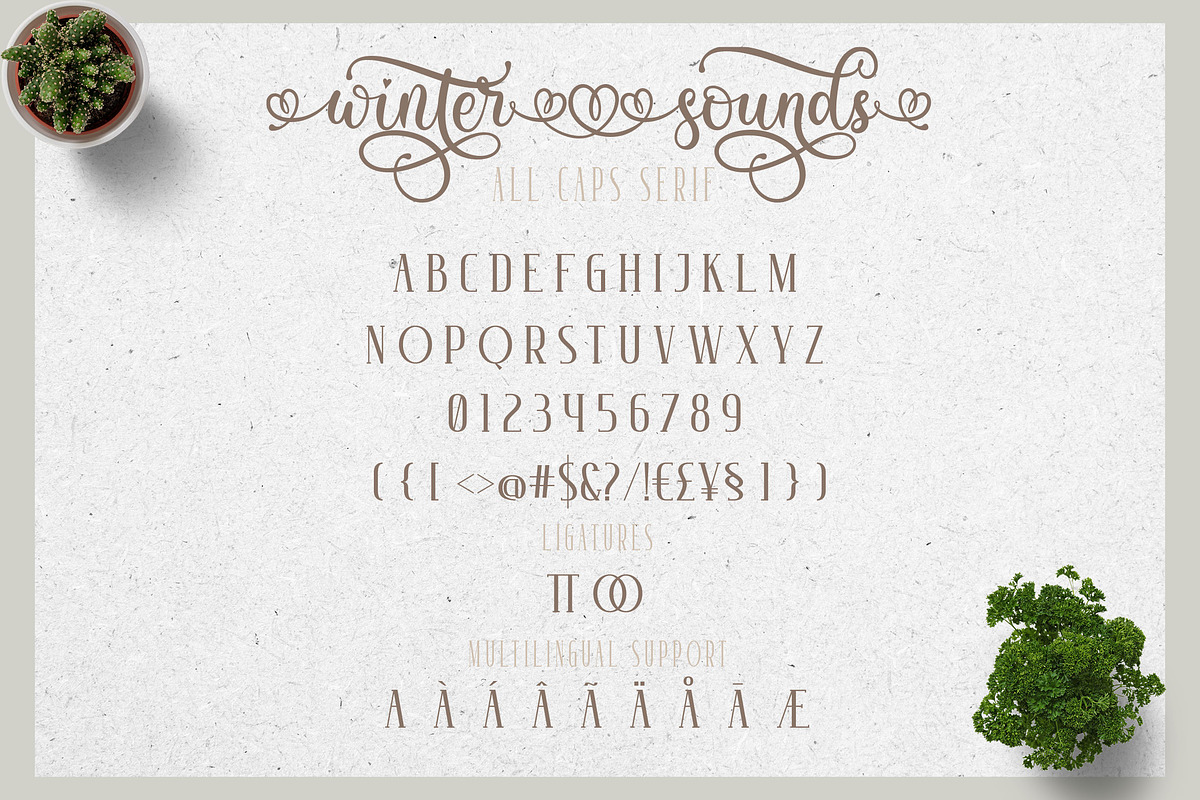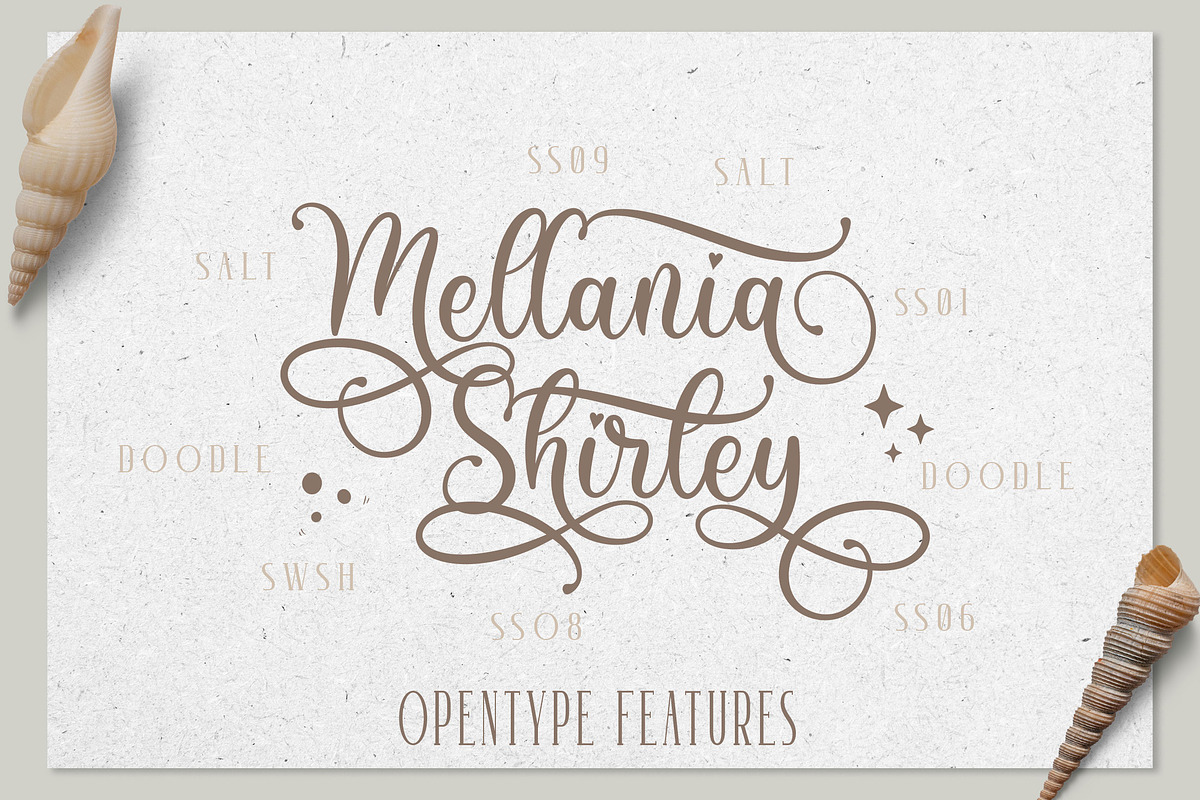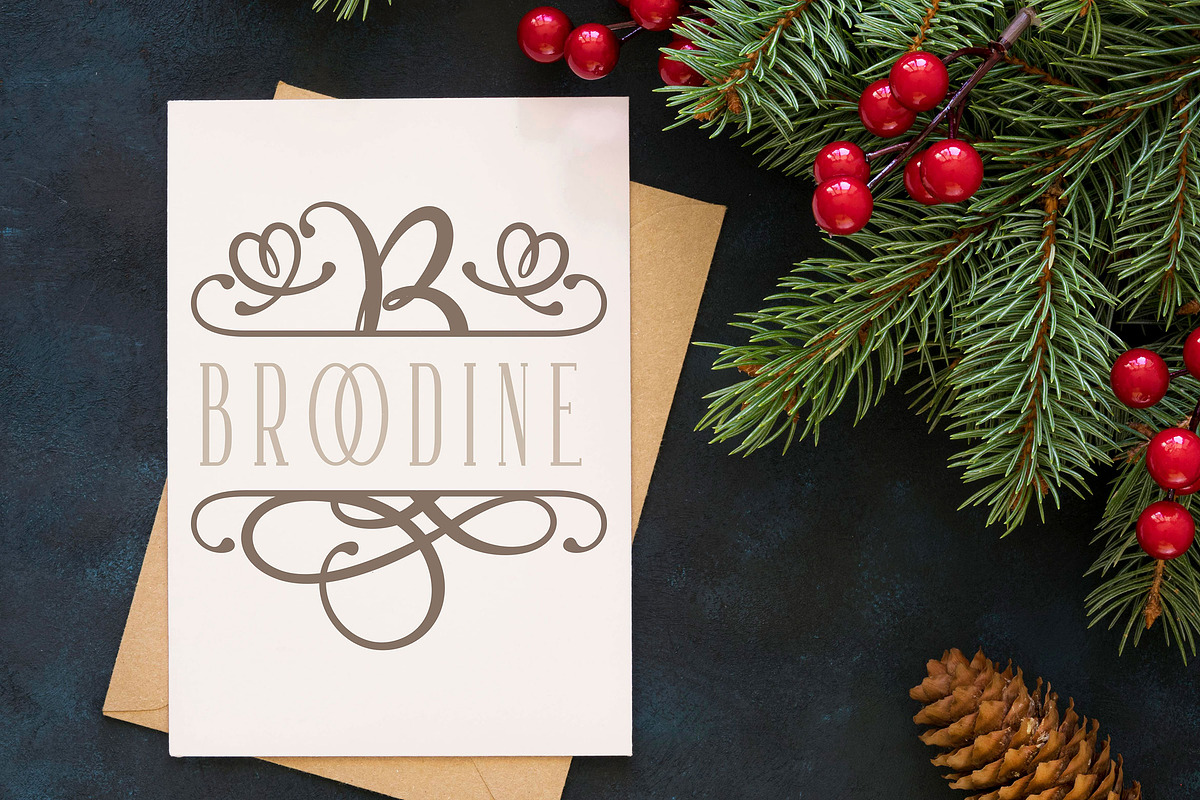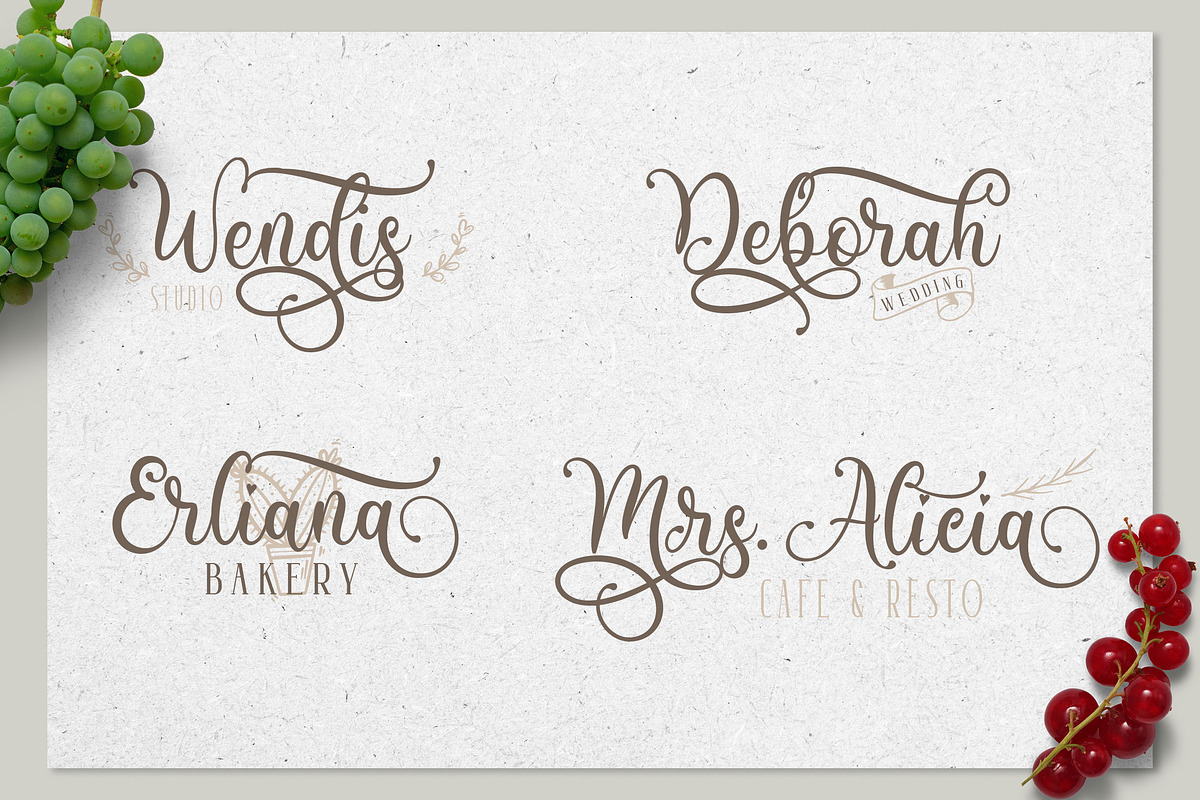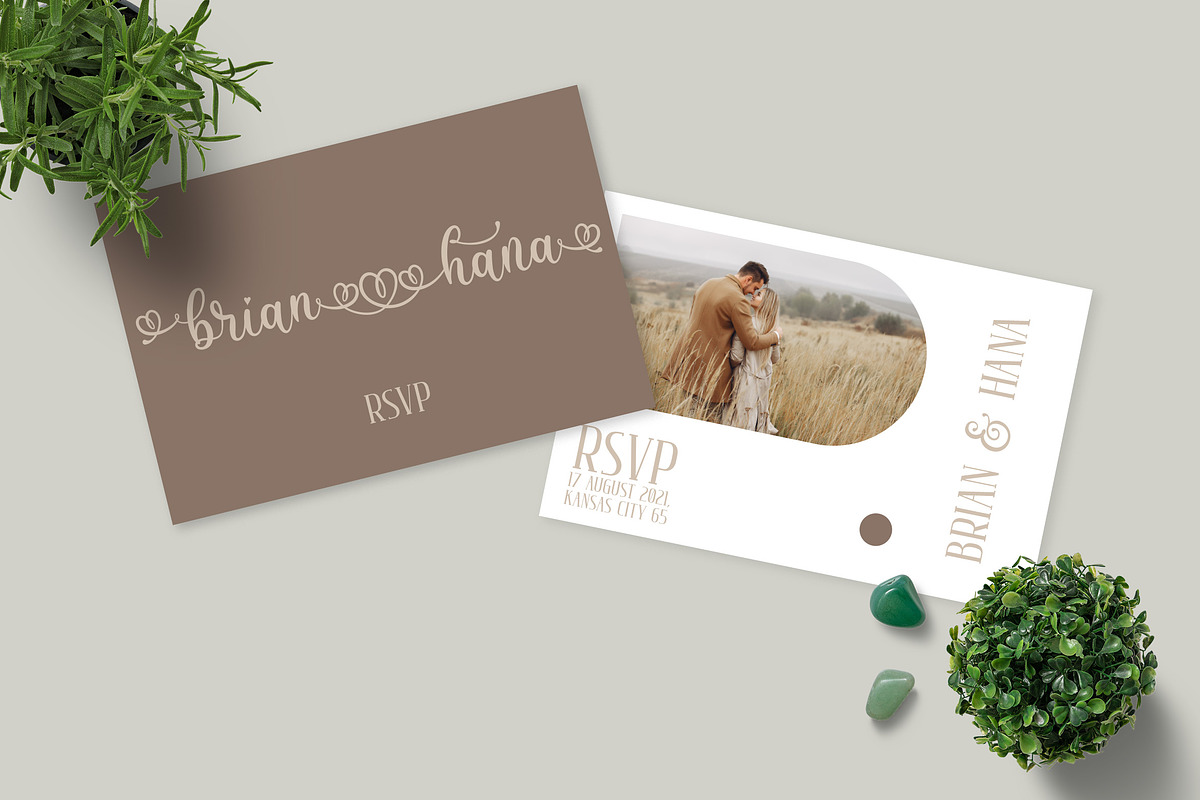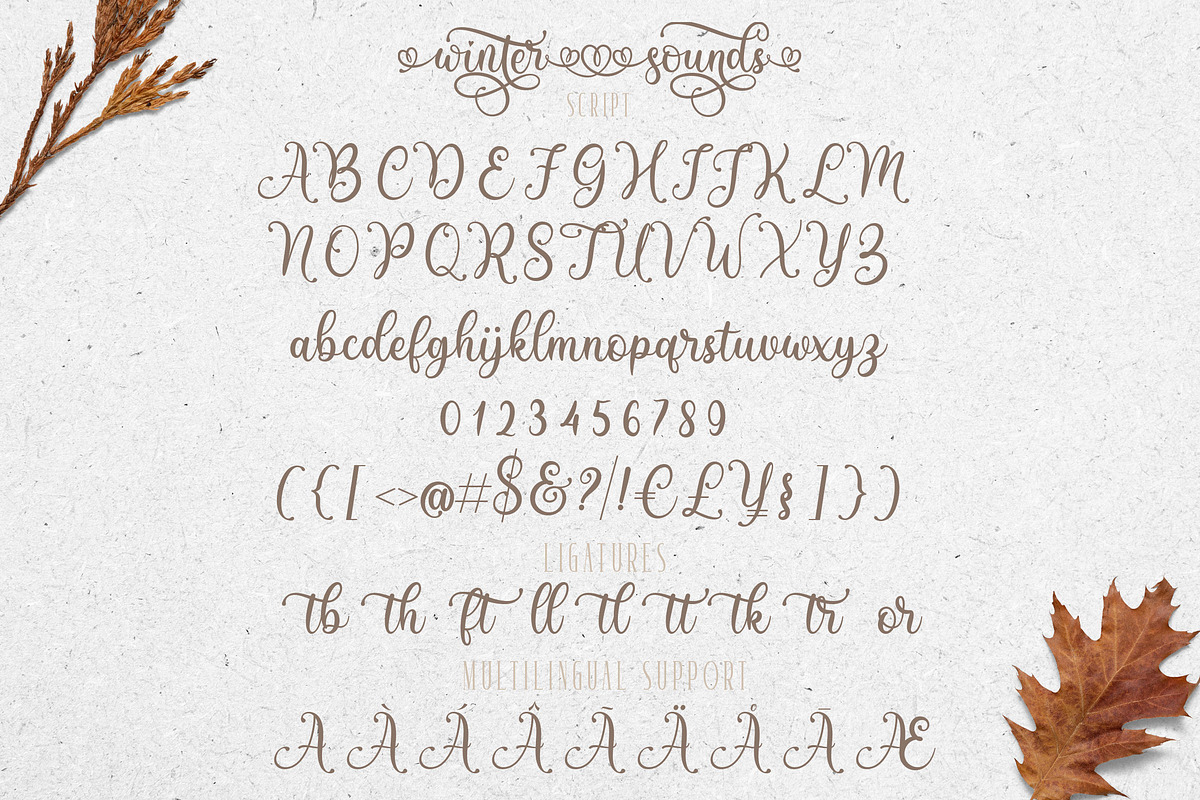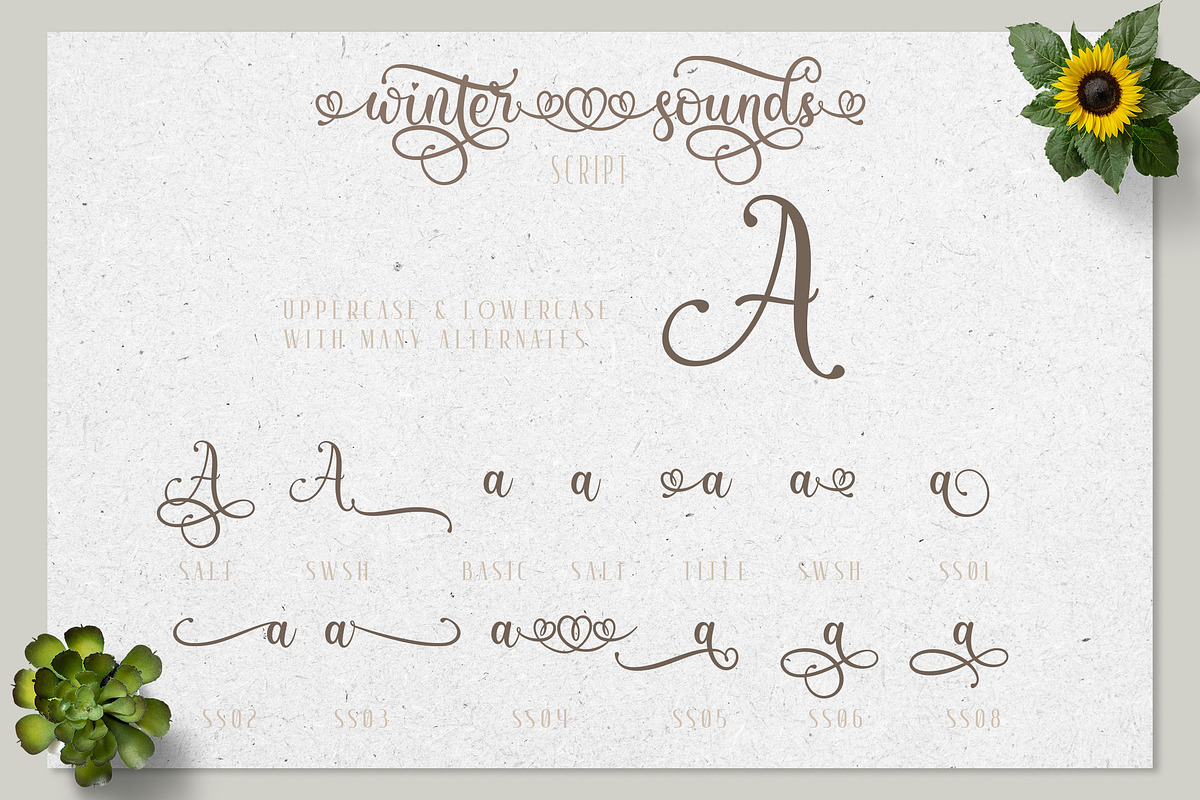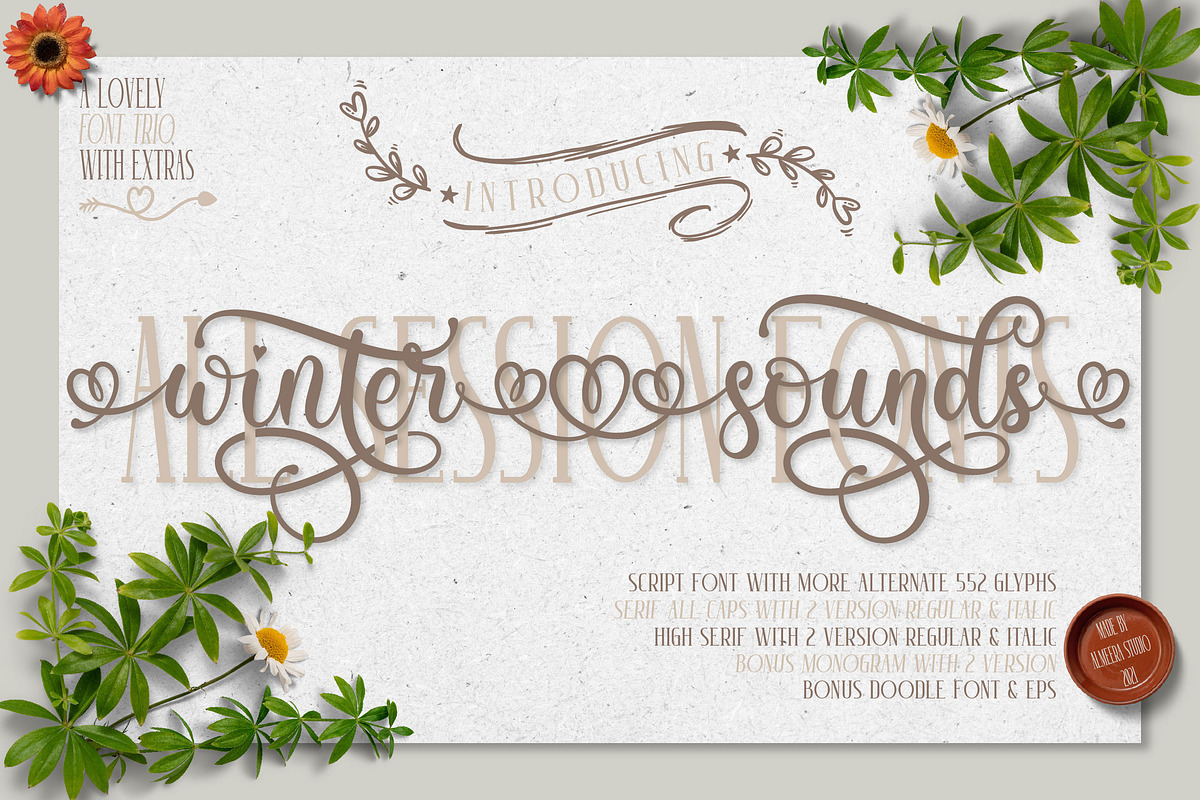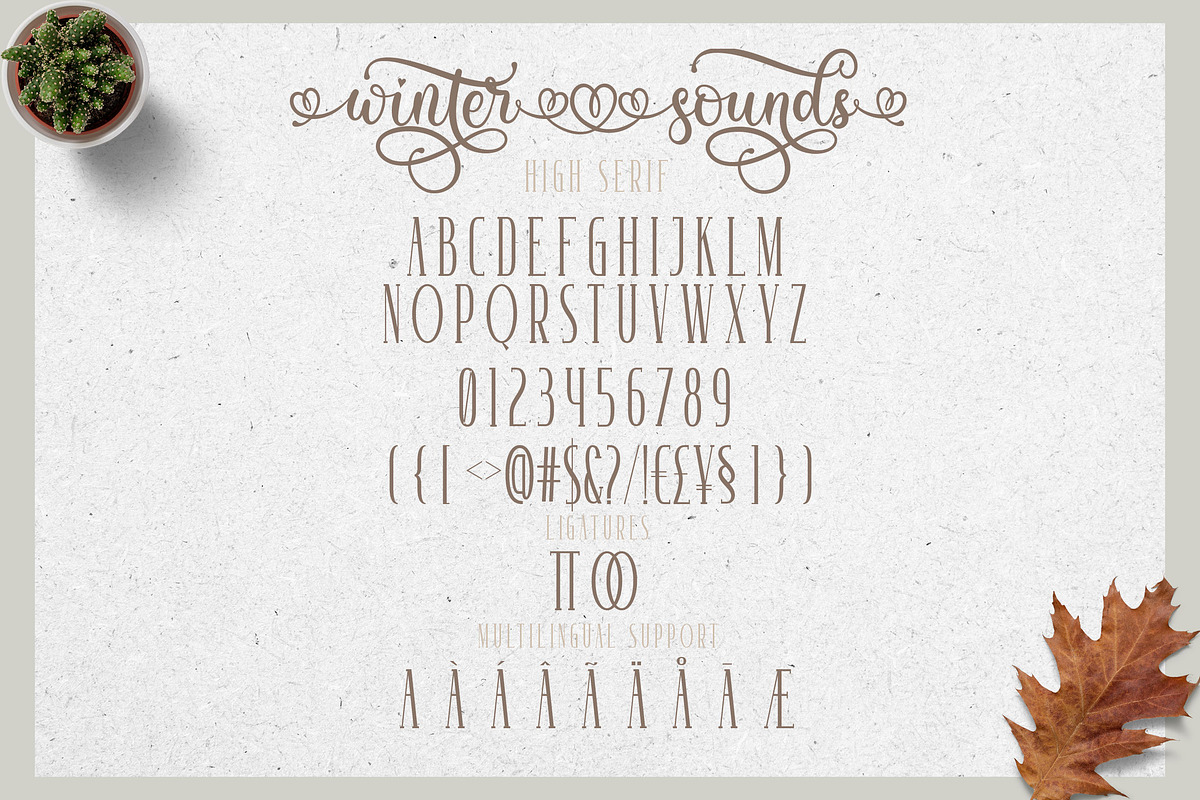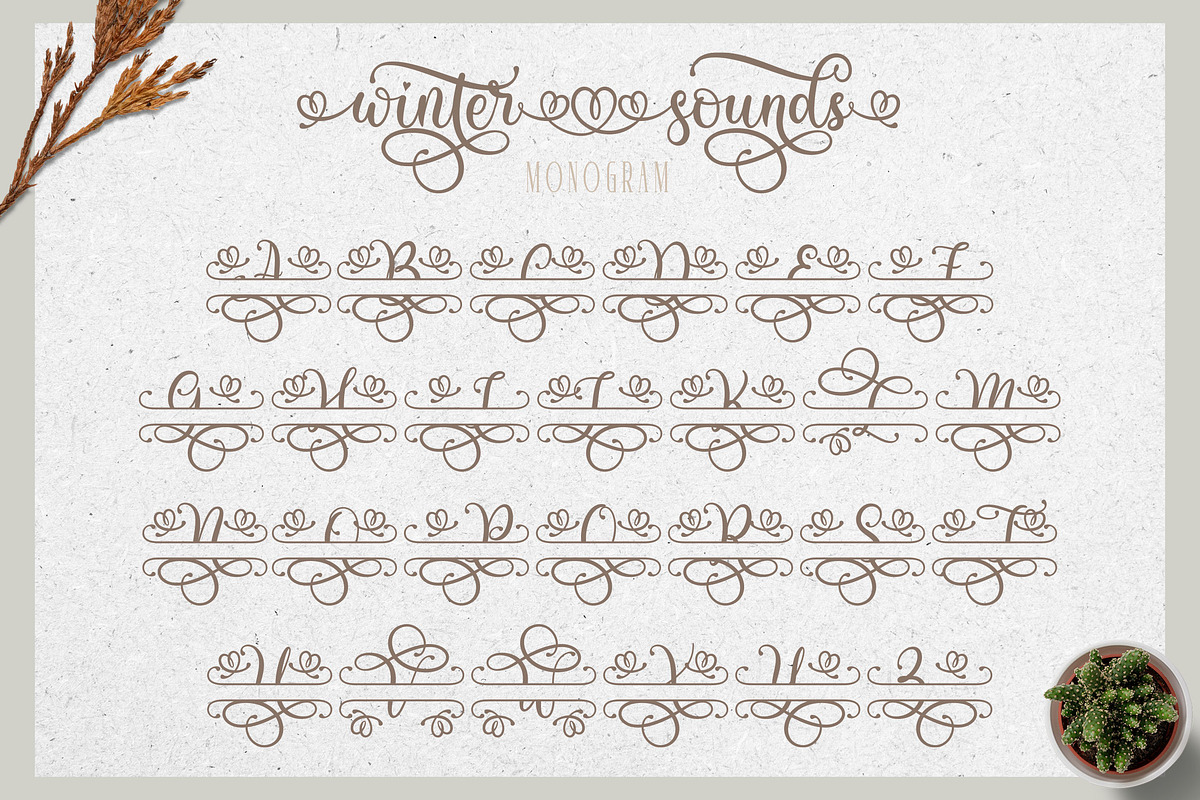
Winter Sounds | All Season Fonts
Winter Sounds All Seasson Fonts comes with Winter Sounds script with many alternate character ,Winter Sounds Serif ( regular n Italic ), Winter Sounds High Serif ( regular n Italic ) ,Winter Sound Monogram and extra doodles included . Winter Soundis suitable for various products such as invitations, chrismast, winter, summer, spring, valentine day,product packaging, quotes, product design, crafter, labels, photography, watermarks, logos, branding and other romantic projects..Everything can be accessed using software that supports Opentype, such as Adobe Indesign, Adobe CS Illustrator, Adobe Photoshop CC, and Corel Draw.